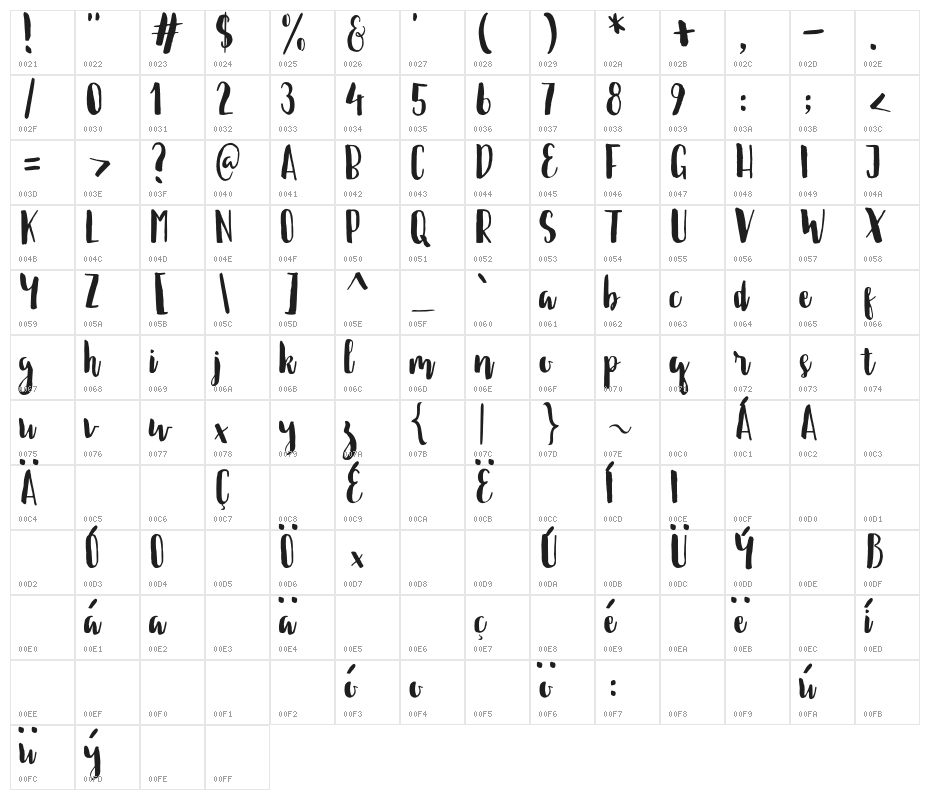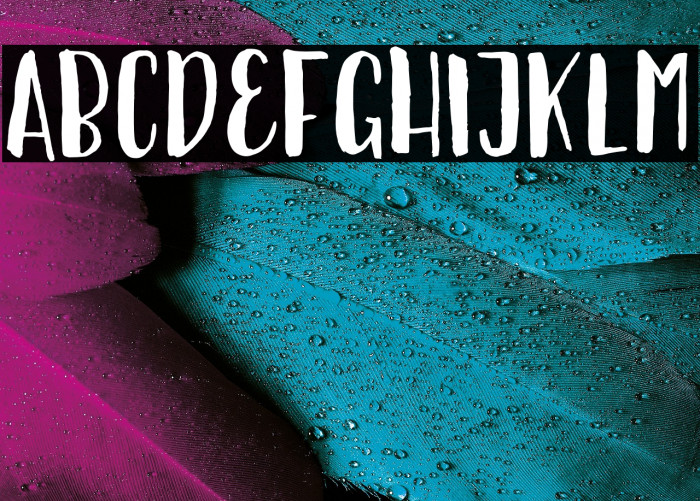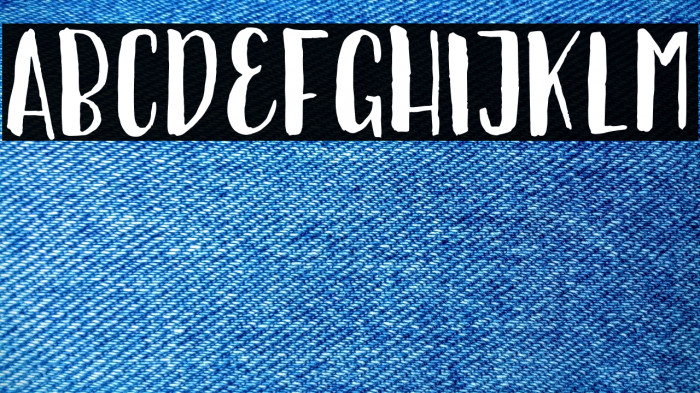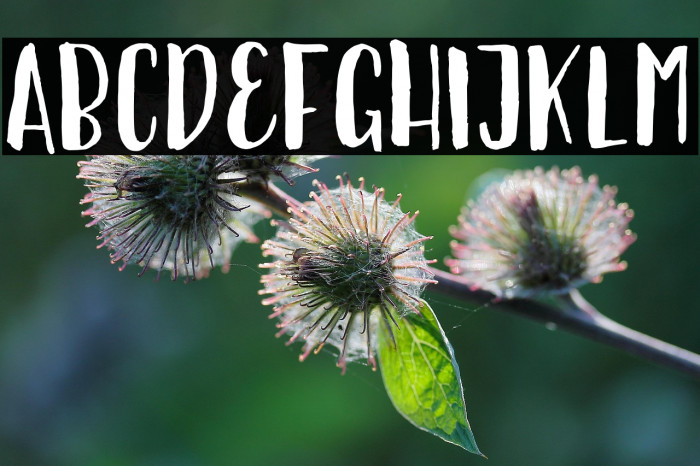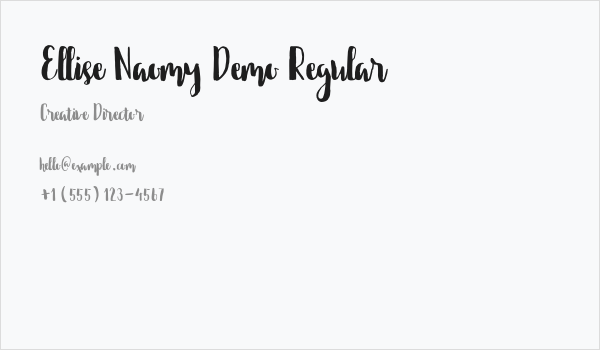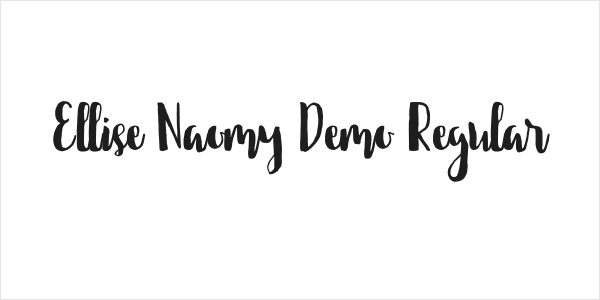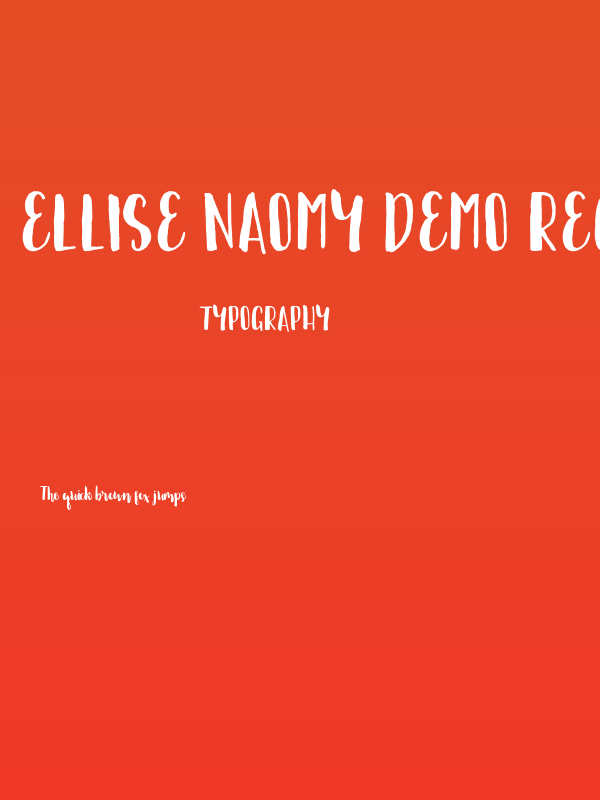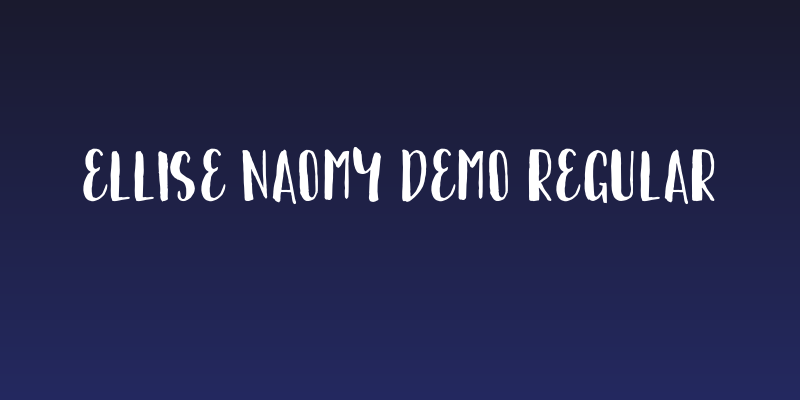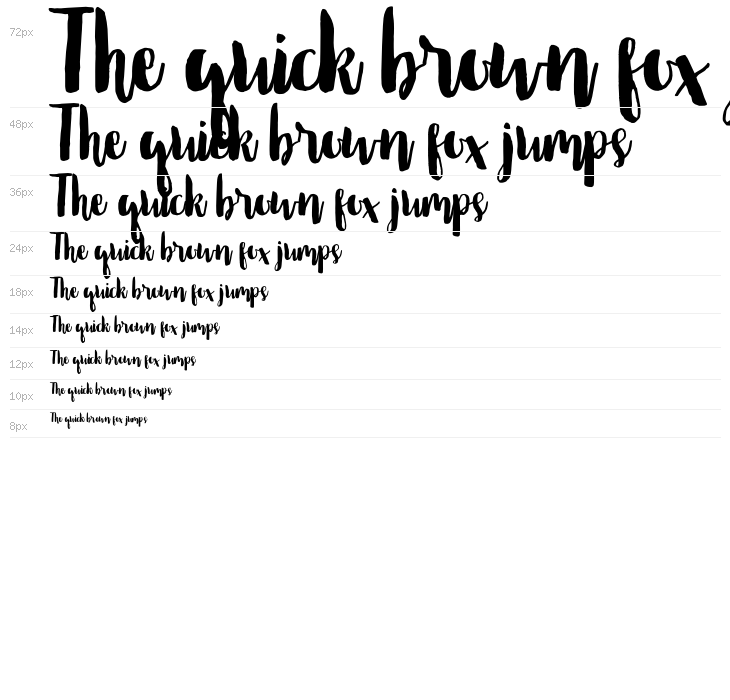
Ellise Naomy Demo Regular Font
Ellise Naomy Demo Regular Description
This font features a bold and expressive handwritten style, characterized by its thick, brush-like strokes that convey a sense of creativity and dynamism. The uppercase letters are tall and slightly condensed, while the lowercase letters exhibit a playful, flowing quality with varying stroke widths. The numbers and special characters maintain the same energetic style, making the font versatile for various design needs. Its unique, artistic appearance makes it stand out, adding a personal touch to any project.